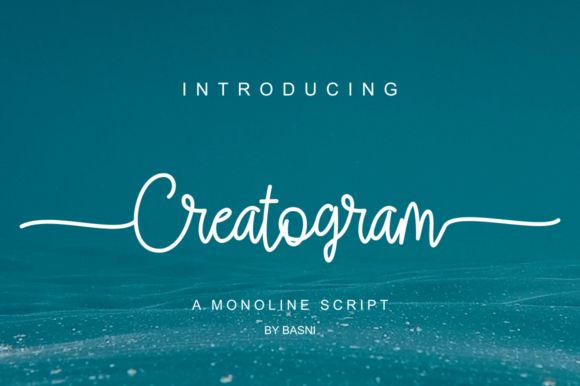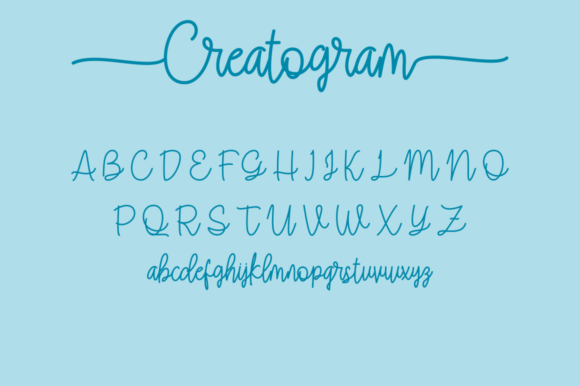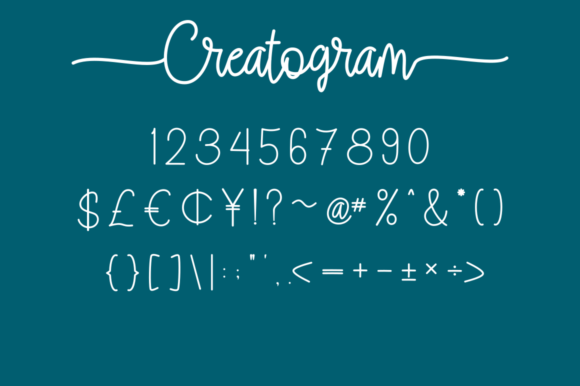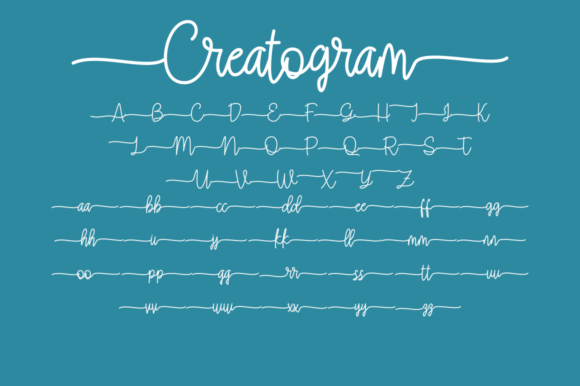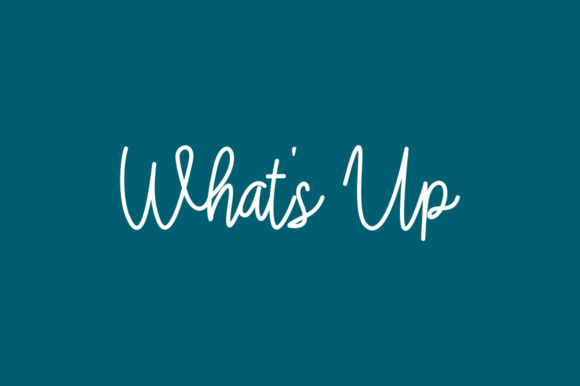
About Creatogram Font
Creatogram is a beautiful, well balanced and vintage styled script font. This font is PUA encoded which means you can access all of the glyphs and swashes with ease! Fall in love with its incredibly versatile style and use it to create spectacular designs!